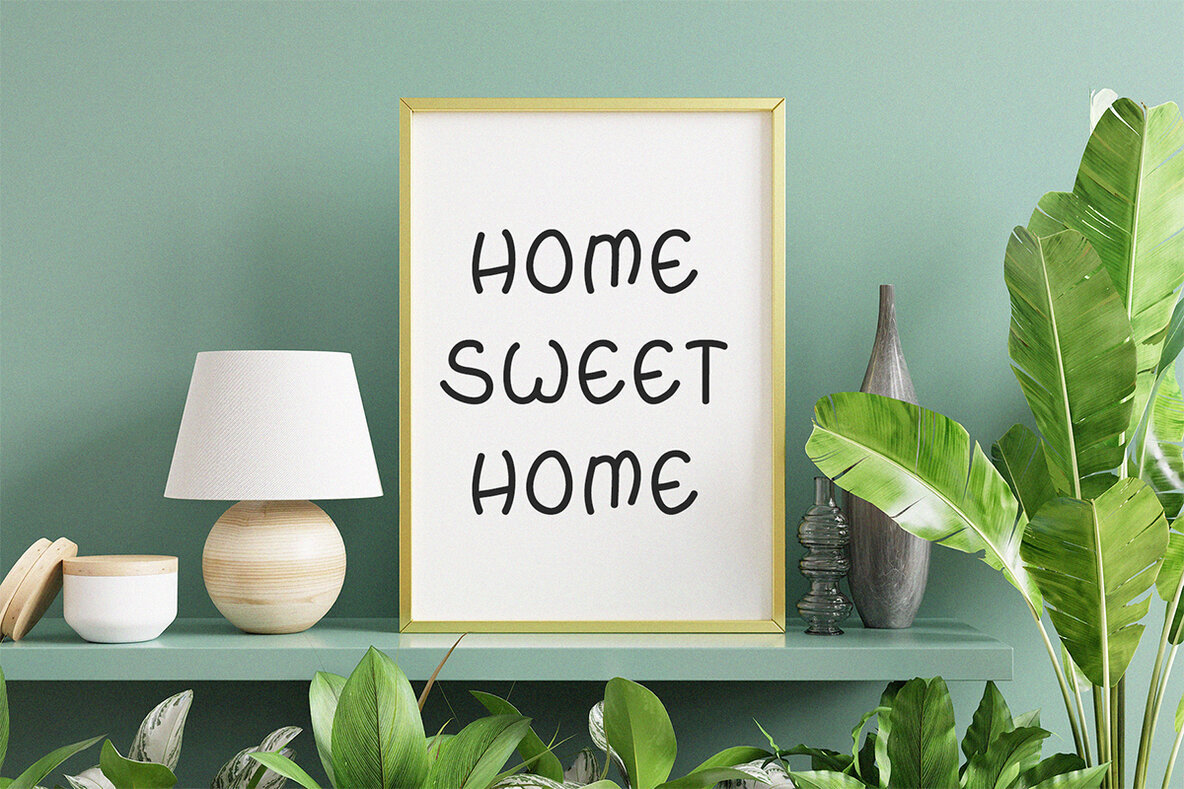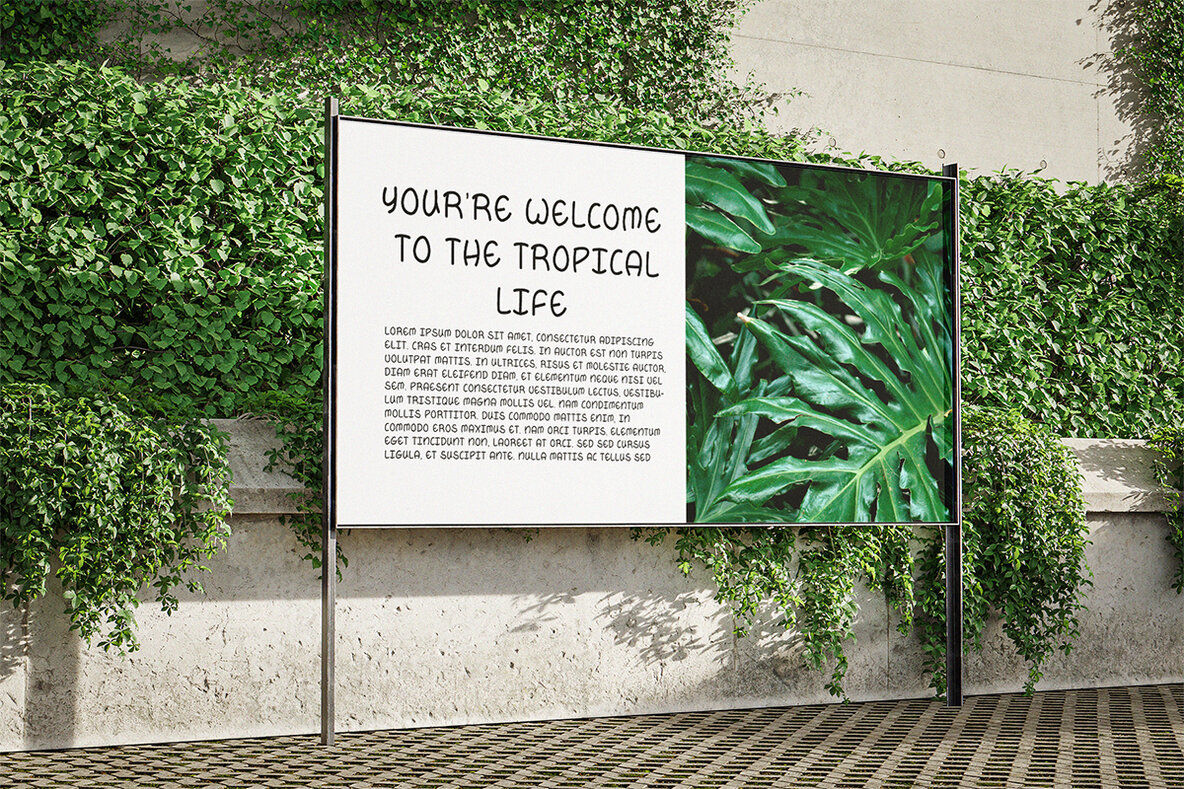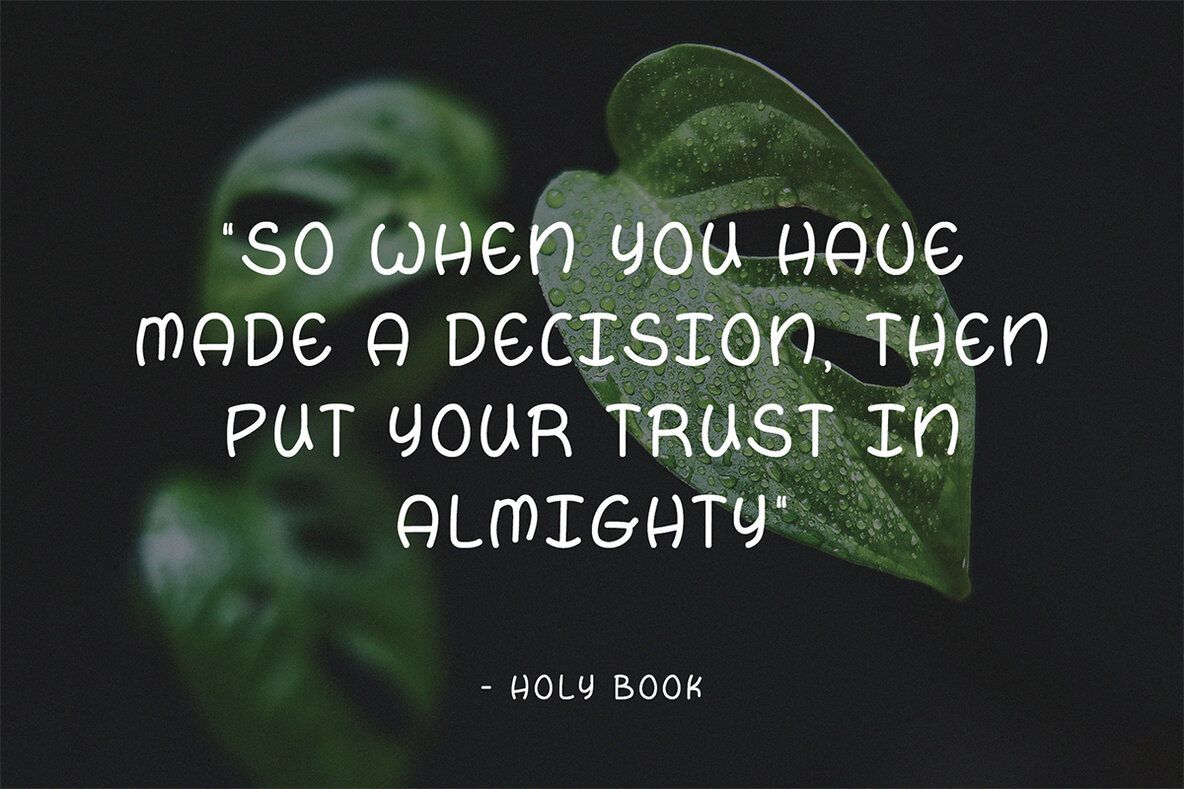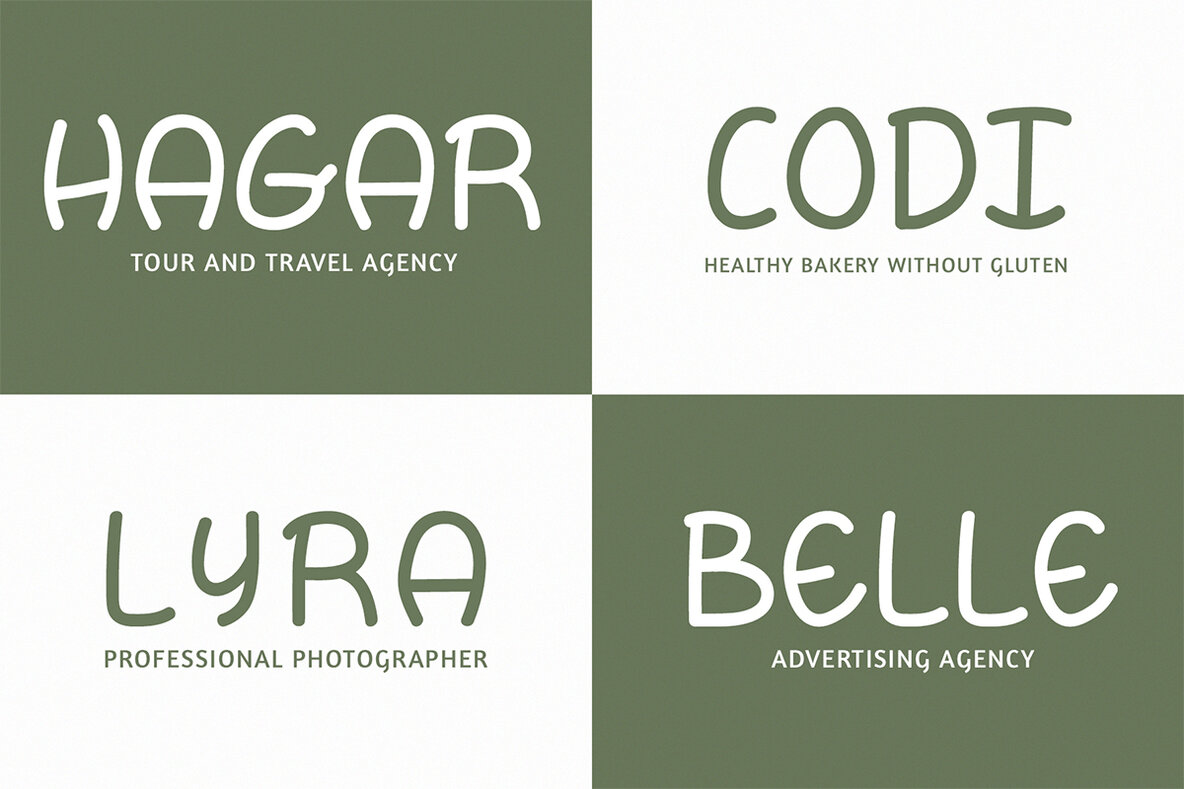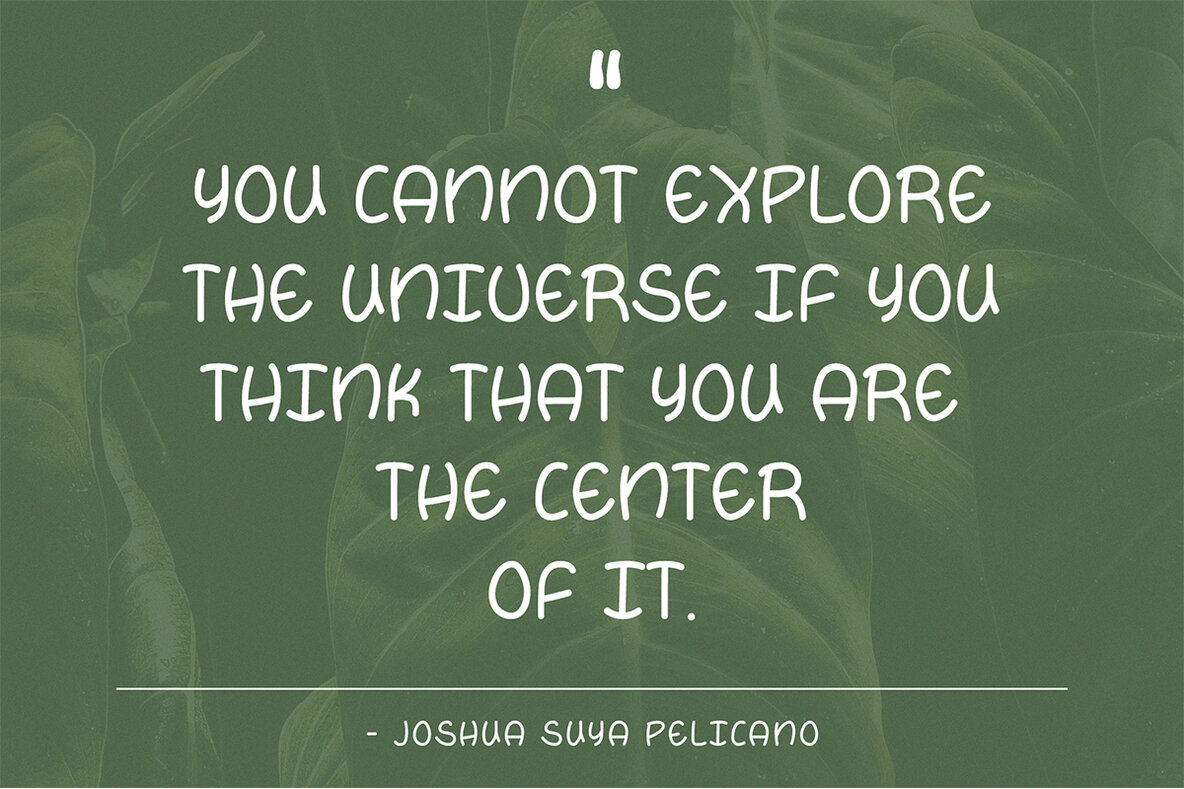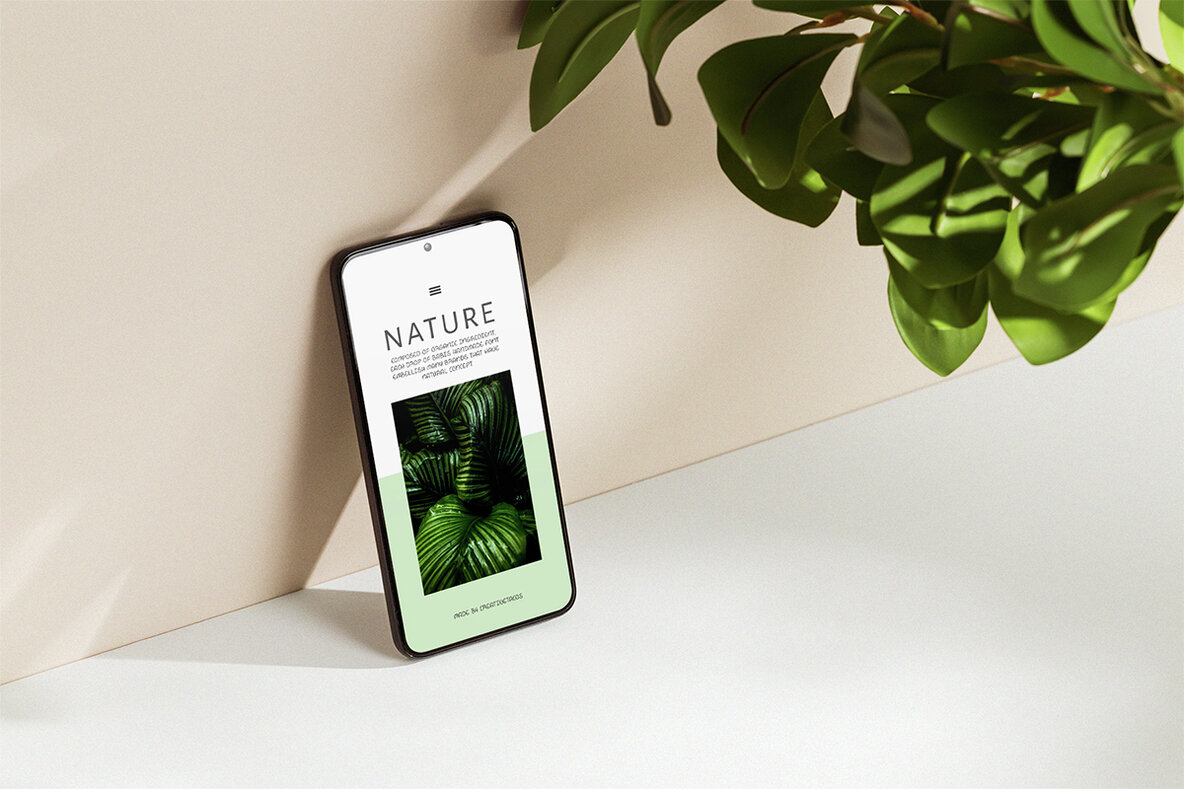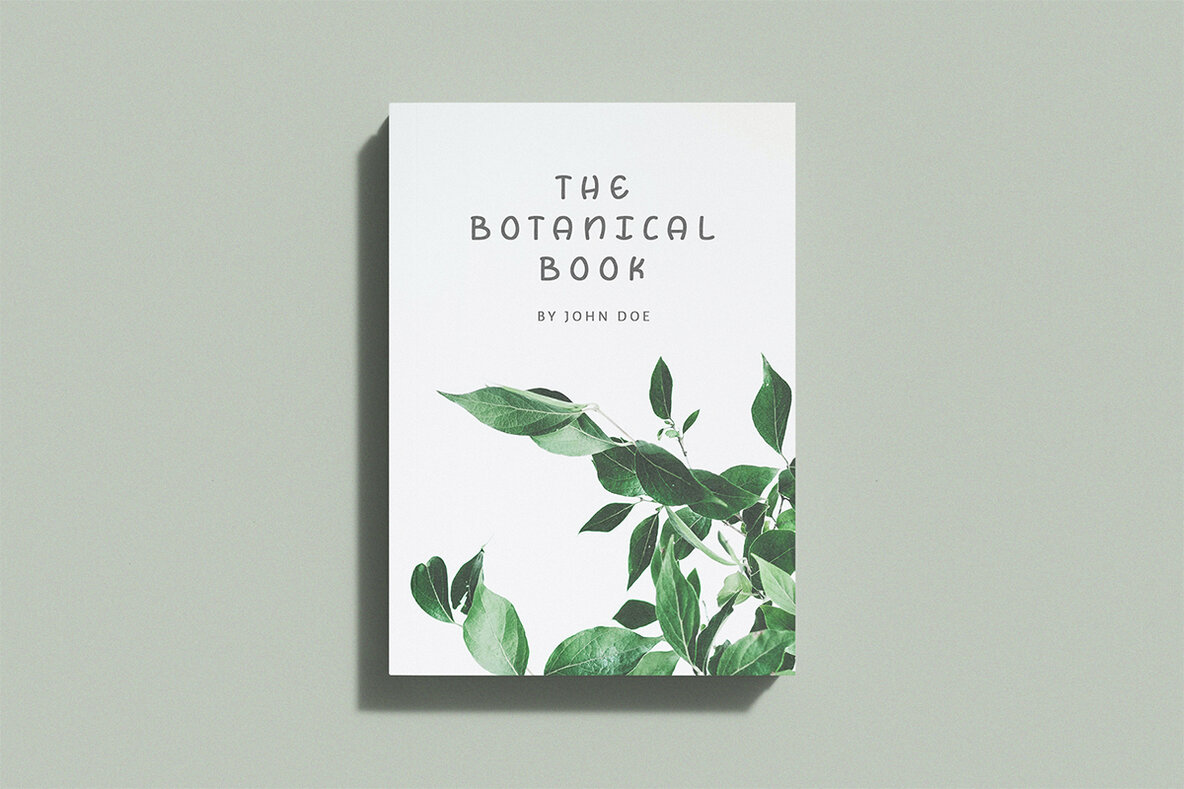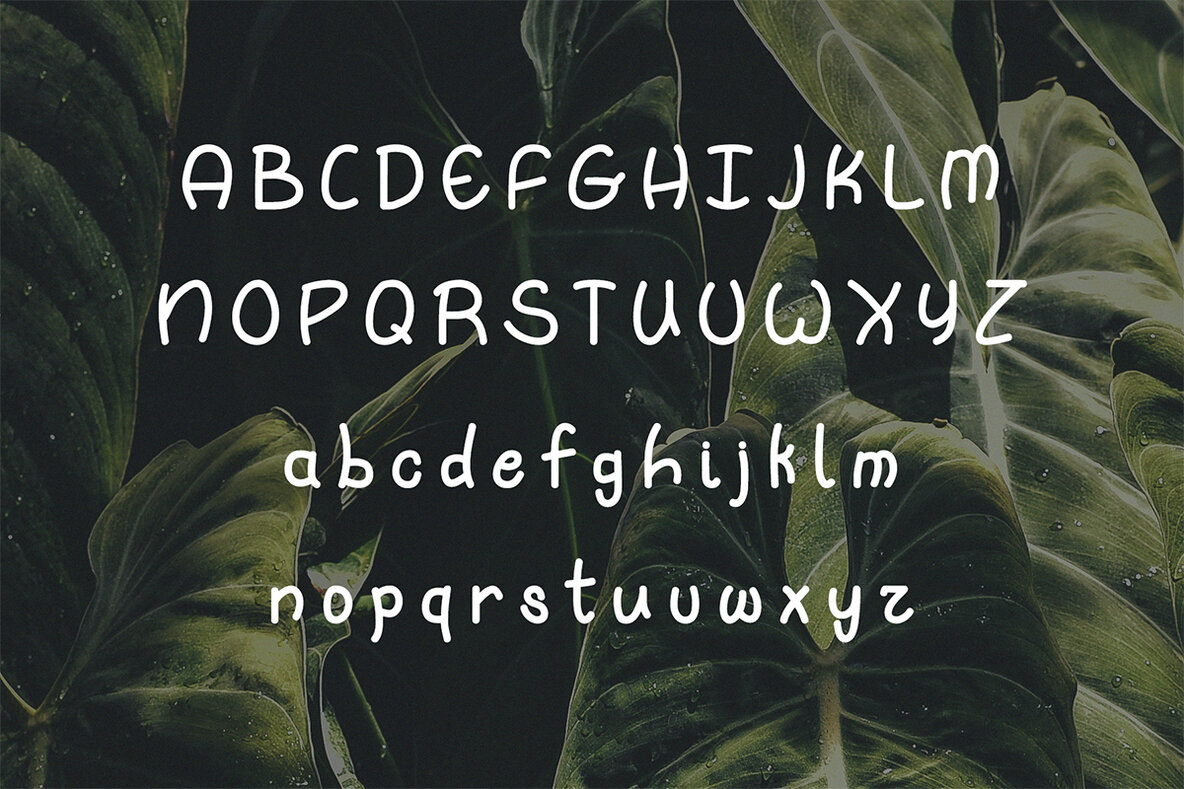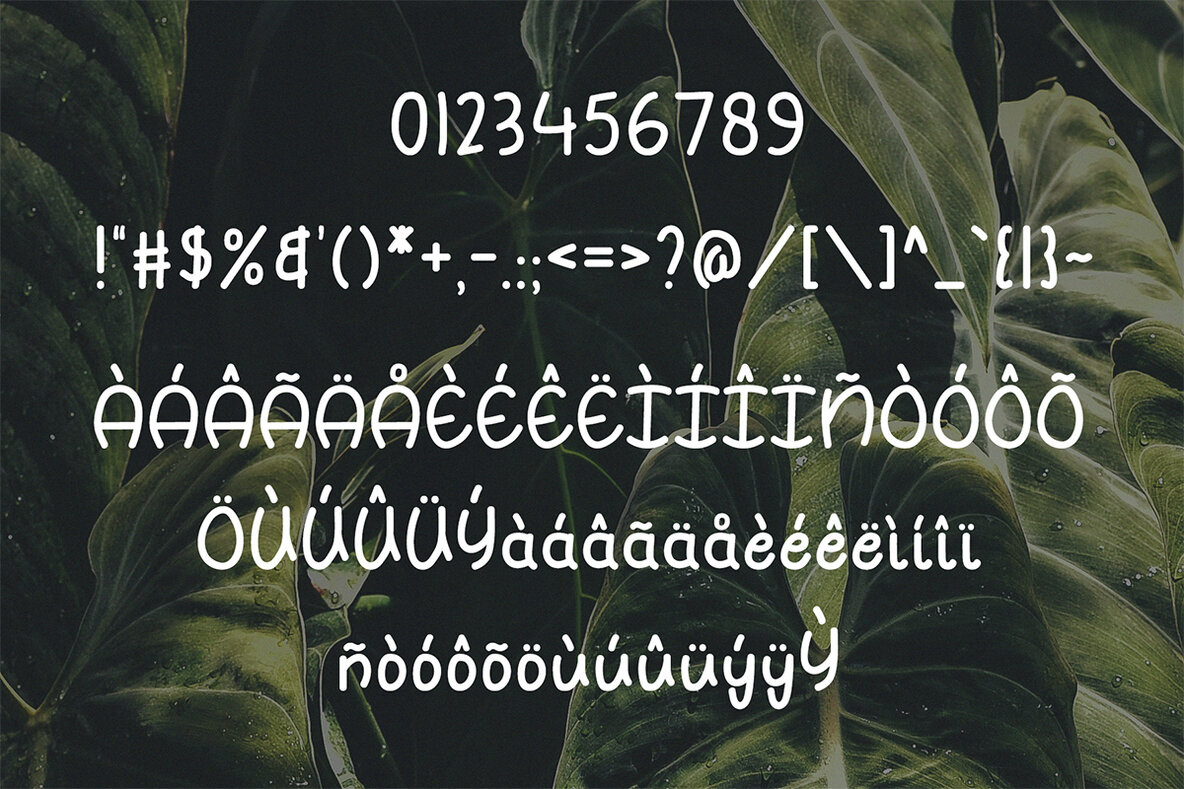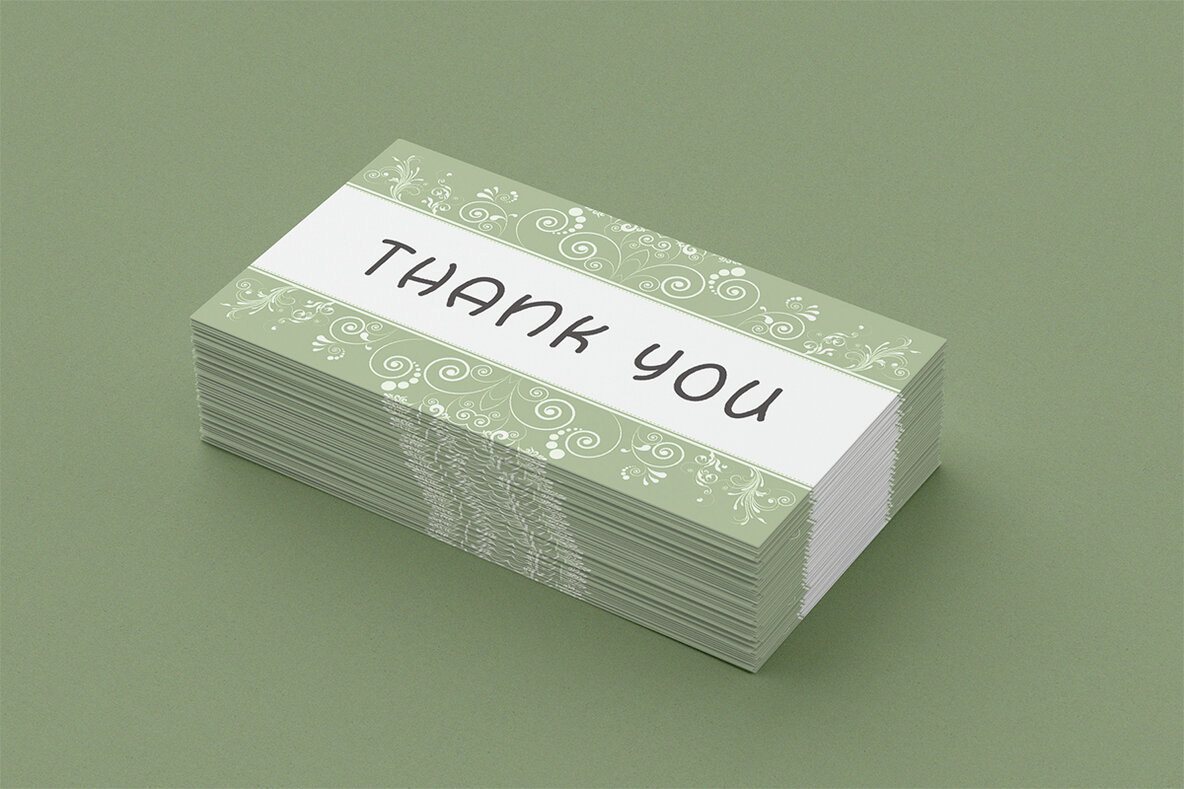
Babis Font
Babis Regular
Babis Handwritten Font is a natural, flowing handmade font crafted with an elegant touch. This versatile typeface includes uppercase and lowercase letters, numbers, punctuation, and symbols, all with multilingual support. It is perfect for various design tasks such as packaging, presentations, logos, headlines, posters, branding, quotes, titles, magazines, headings, web layouts, advertising, invitations, and book design.
The font offers a comprehensive character set, including a full alphabet of uppercase and lowercase letters, numerals, punctuation marks, and accented characters. Babis Handwritten Font is ideal for adding a personal touch to your creative projects, ensuring each piece stands out with authenticity and style. Whether you're designing for print or digital media, this font will bring a magical, handcrafted flair to your work.